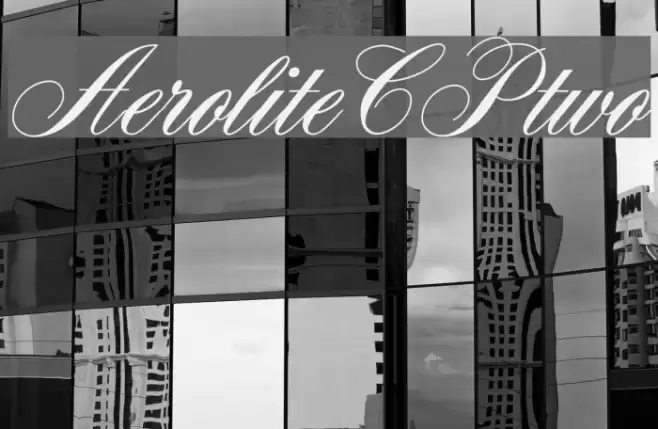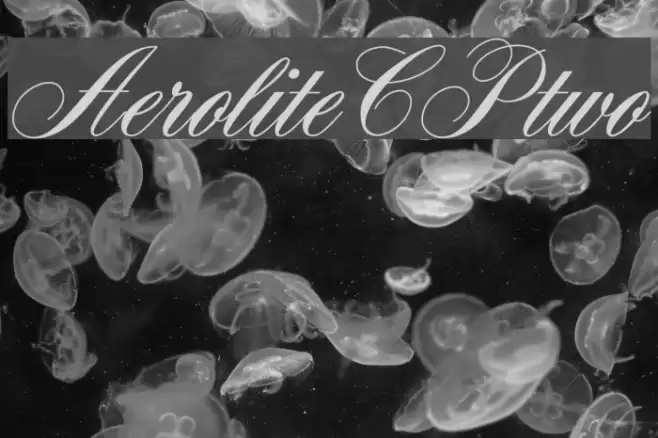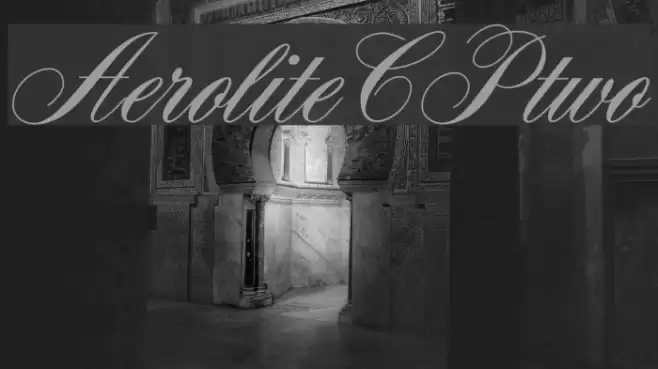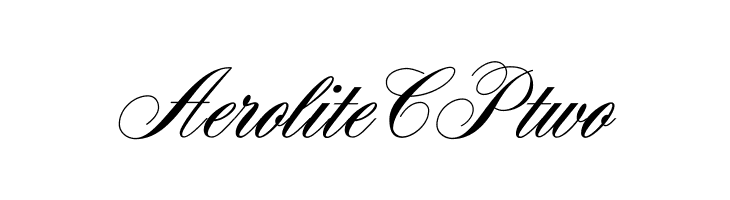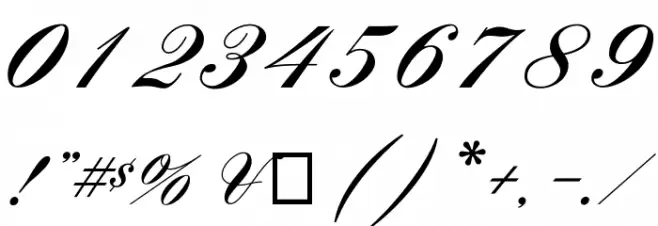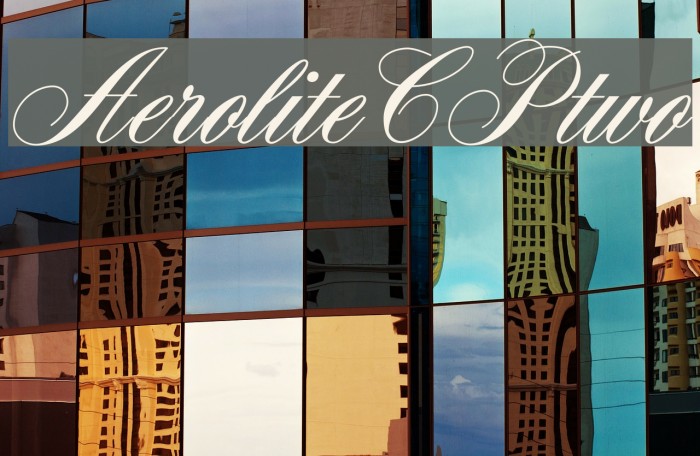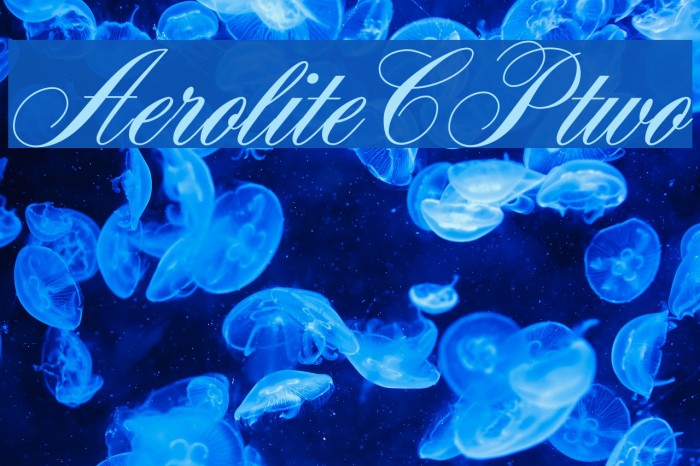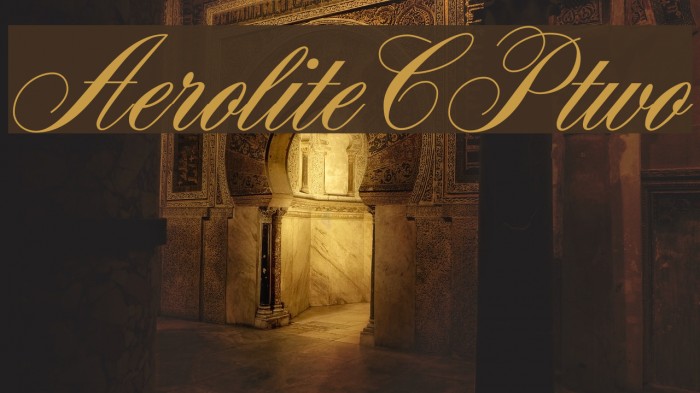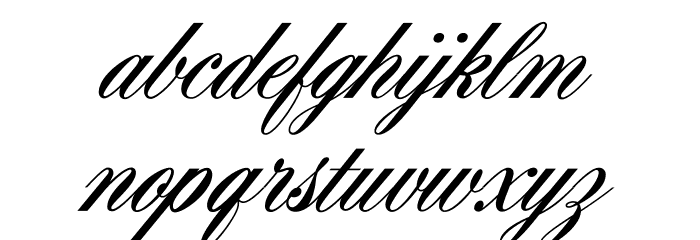
AeroliteCPtwo Font
AeroliteCPtwo Description
This elegant script font features a flowing, cursive style with high contrast between thick and thin strokes. The uppercase letters are ornate and decorative, with sweeping curves and flourishes that give a sense of sophistication and grace. The lowercase letters maintain a consistent slant, enhancing the fluidity and continuity of the text. Numbers and special characters are designed to match the overall aesthetic, with a refined and polished appearance. This font is ideal for projects that require a touch of elegance and formality.
An elegant script font with high contrast and flowing cursive style from Uncategorized fonts.
- Proposed Projects: Wedding invitations, luxury branding, elegant signage, formal event programs.
- Contrast: High
- Overall Style: Elegant, Formal
- Use Case: Headlines, Invitations, Branding